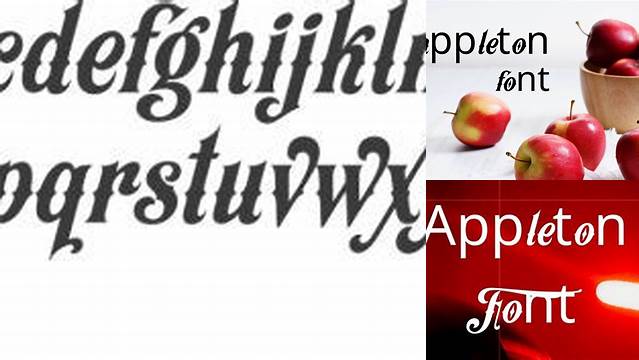
Using the Appleton Font Free in Your Designs
Alright, you've got the Appleton font free installed, and it's time to put it to work! This font can be incredibly versatile, so let's explore some ways to use it effectively in your designs. Appleton font is great for headings, titles, and short blocks of text. Its clean lines and readability make it perfect for grabbing attention. Consider using it on websites, posters, or even social media graphics. You can pair it with a different font for body text to create a balanced look. Experiment with different sizes and weights to find the perfect combination. Play around with color! The Appleton font looks great in various colors, so don't be afraid to experiment. Try it on backgrounds with gradients or patterns. Think about how it can enhance your message. It can bring a professional look to your work. It's also excellent for branding purposes, helping create a consistent visual identity. You can use this font on your website, your business cards, and your promotional materials. Try to use Appleton font as a visual element to bring your designs to the next level, and play with combinations. It can be a great way to express your brand's personality. The possibilities are endless, so let your creativity flow.
Best Practices for Appleton Font Usage
Let's talk best practices when using the Appleton font free in your designs. First and foremost, consider readability. Make sure the font is easily readable at different sizes and on various backgrounds. Test the font on different devices to ensure it looks consistent across the board. Think about the overall design and how the font complements the other elements. Don't overcrowd your design with too much text. Use negative space effectively to enhance the visual appeal. Experiment with different weights and styles of the font. Appleton font often comes in various weights (light, regular, bold), which can add depth and visual interest to your designs. Always check the font's licensing agreement. Make sure you're using it in accordance with the terms of use. If you're creating a design for commercial use, make sure you have the appropriate license. Always proofread your text to avoid any spelling or grammatical errors. This will show that you have attention to detail. Consider the target audience when choosing the font. Make sure it aligns with the overall tone and message of your design. Also, think about how the font will look when printed. Conduct tests to ensure the font is rendered correctly. By following these guidelines, you can make the most out of the Appleton font and create visually appealing designs.
Alternatives to Appleton Font Free
While the Appleton font free is awesome, it's always a good idea to have some alternatives up your sleeve. Sometimes, the specific font isn't available, or you might want to explore other options. Luckily, there are plenty of similar fonts out there that can achieve a similar look and feel. If you like the clean, modern aesthetic of Appleton font, consider fonts like Montserrat, Open Sans, or Lato. These are all excellent choices, offering great readability and versatility. They're also widely available and often come with a variety of weights and styles, giving you plenty of options. Another option is to look for fonts with a similar character style, such as rounded terminals and consistent stroke weights. Websites like Google Fonts and Font Squirrel are great resources for finding these alternatives. Also, don't be afraid to experiment with font pairings. Pairing one font with another can create a unique visual effect. Explore how different fonts can complement each other. The goal is to find a font that works well with your design and conveys your message effectively. With so many fonts available, you're sure to find something that matches your vision. Taking the time to find a good alternative font can be a rewarding experience. Explore your options!